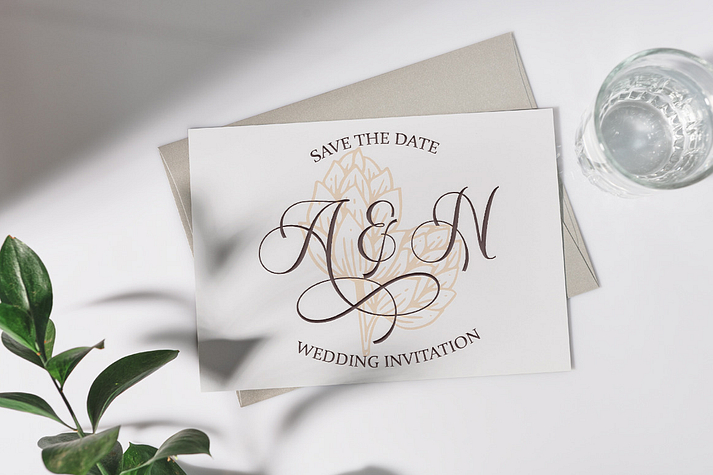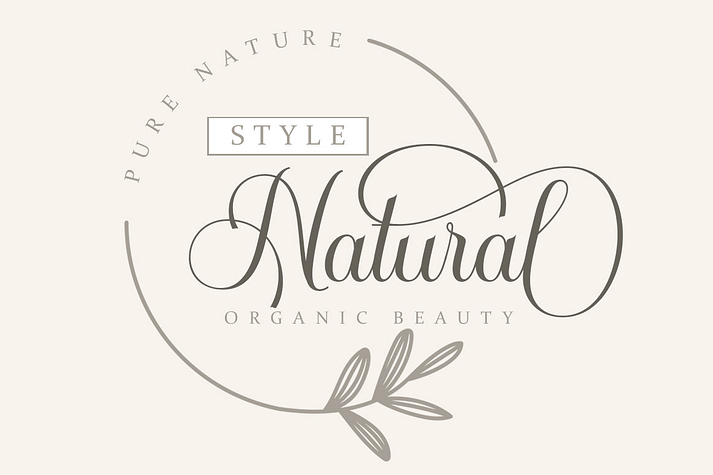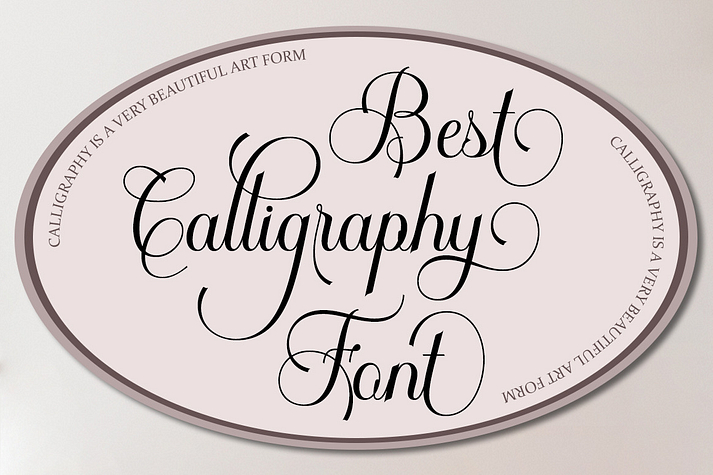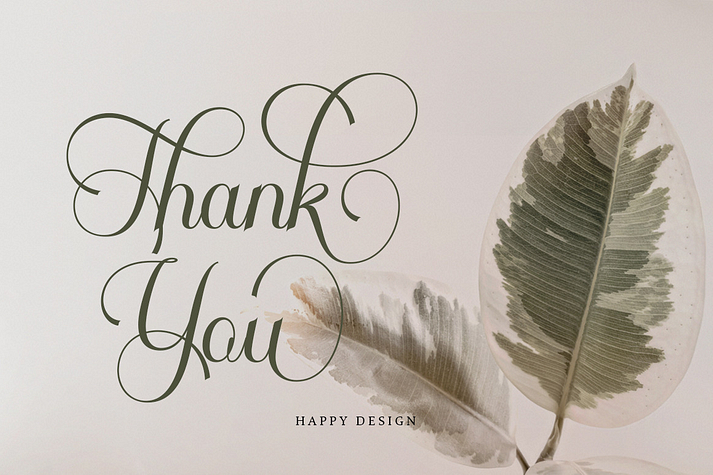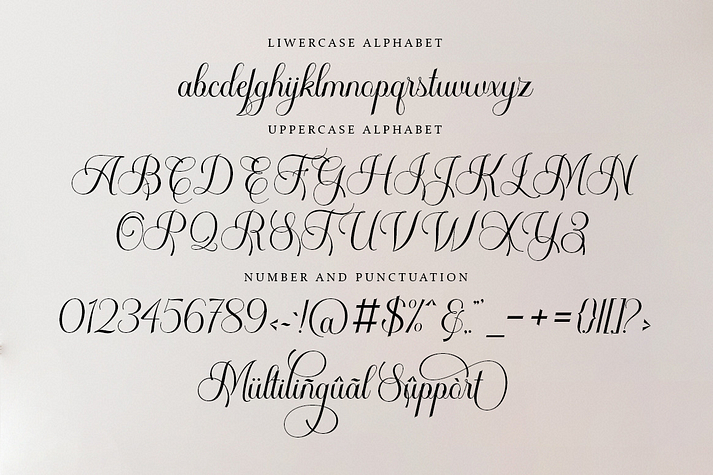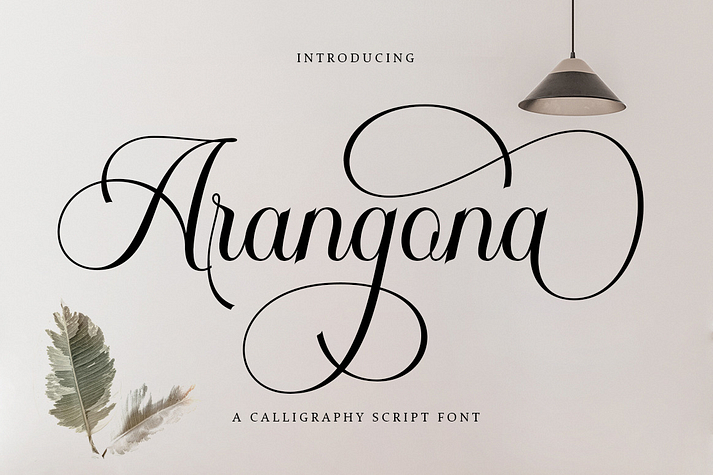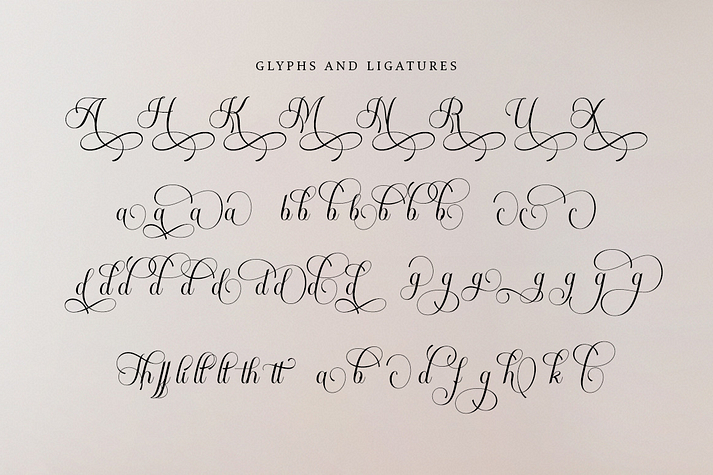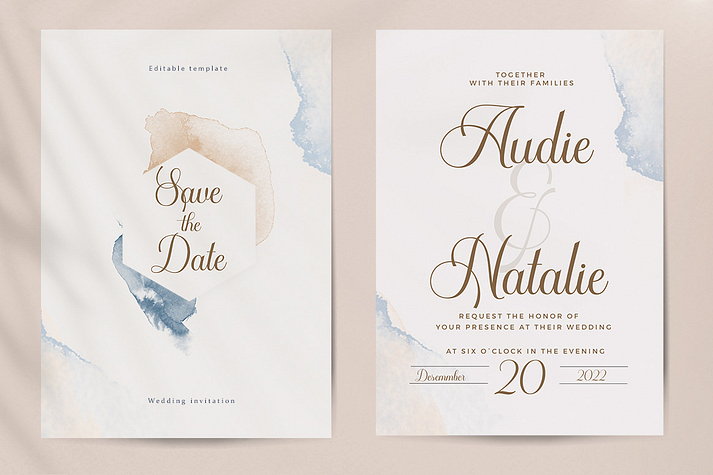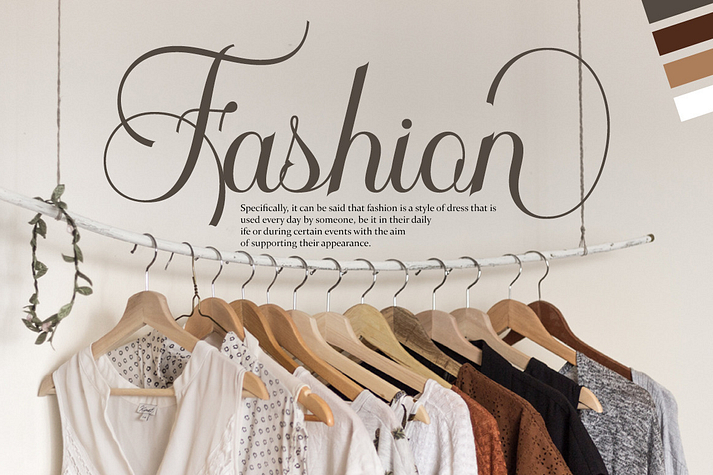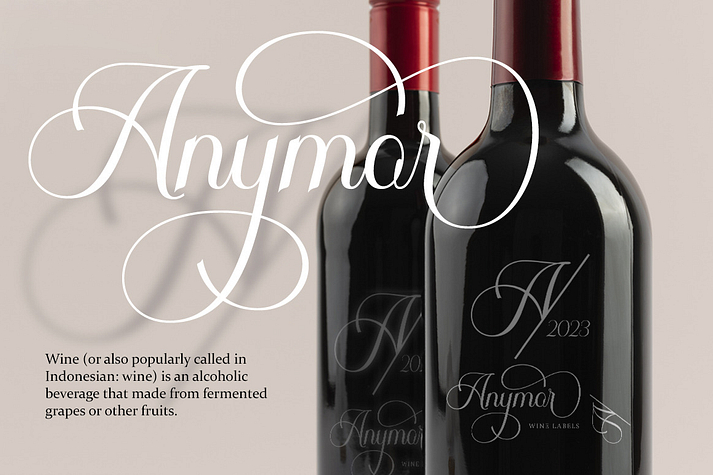
Arangona
Arangona is a font family published by Pista Mova.
With this style, this font would be perfect for logos, branding projects, homeware designs, product packaging, mugs, quotes, posters, shopping bags, logos, t-shirts, book covers, business cards, invitation cards, greeting cards, and more. all your other beautiful projects.
Arangona includes various language support. You can use this font for your work very easily. Because there are many features in it. Contains a complete set of upper and lower case letters, punctuation marks, numbers and multilingual support. This font also includes several ligatures and alternative styles. Stylistic Set For those of you who have software that is able to work OpenType (Corel Draw / Photoshop / Illustrator / InDesign).